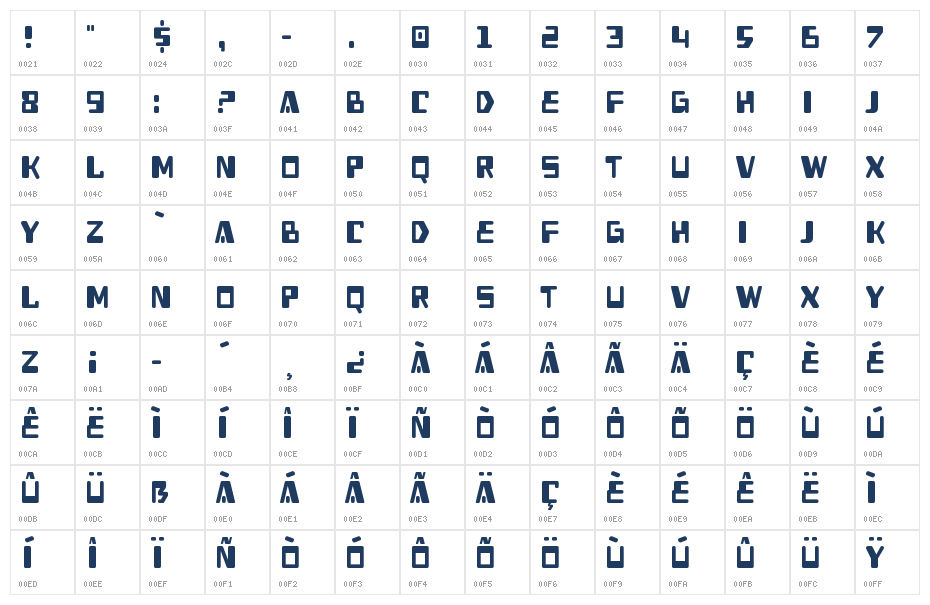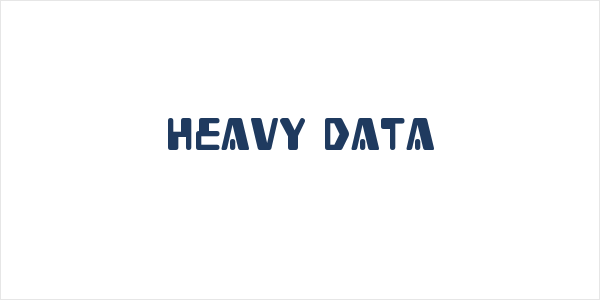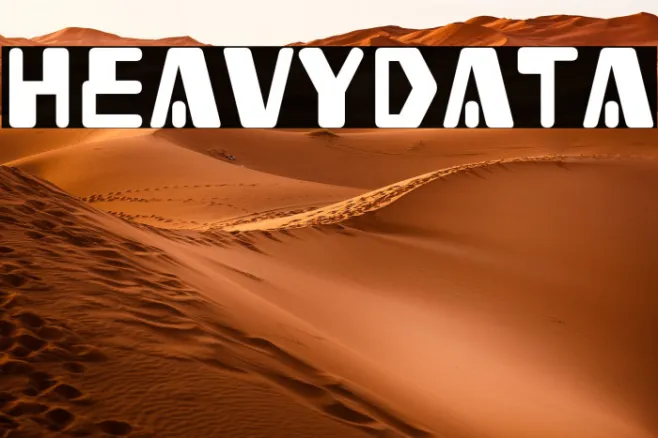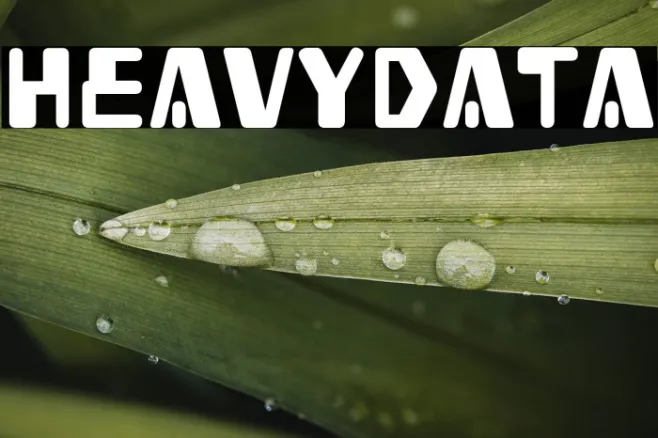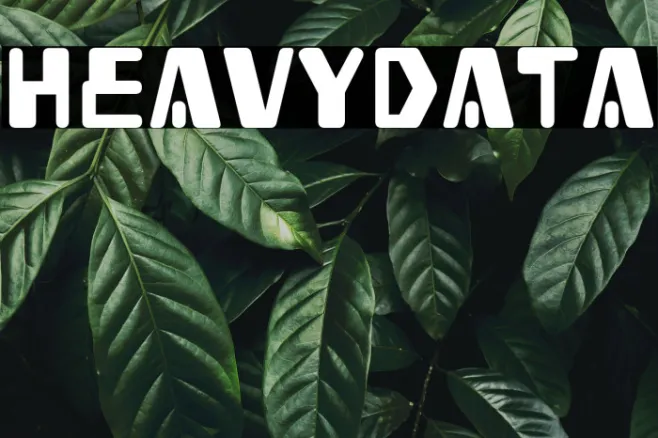
Heavy Data Font
Heavy Data Description
A bold, geometric, sans-serif font with a blocky and modern appearance, featuring uniform stroke widths and angular cuts.
| Overall Style | Modern, Geometric |
| Use Case | Headlines, Logos, Branding, Posters, Digital displays |